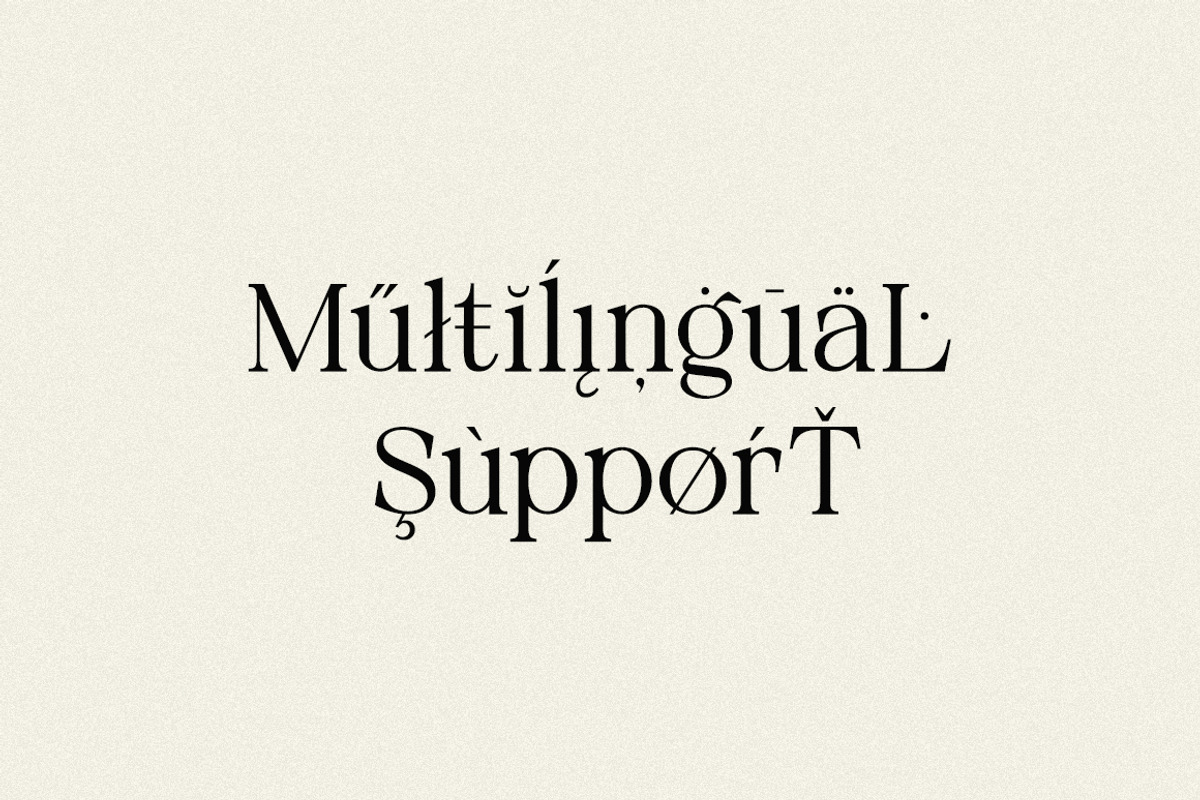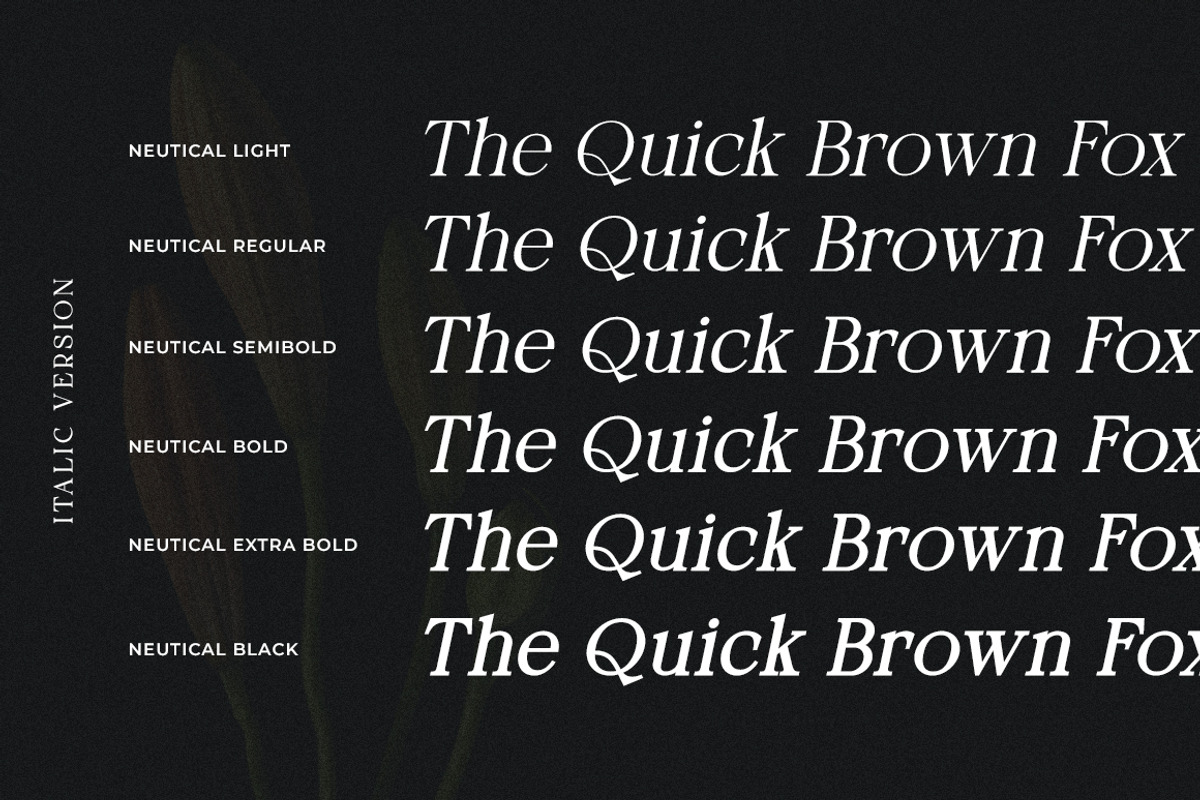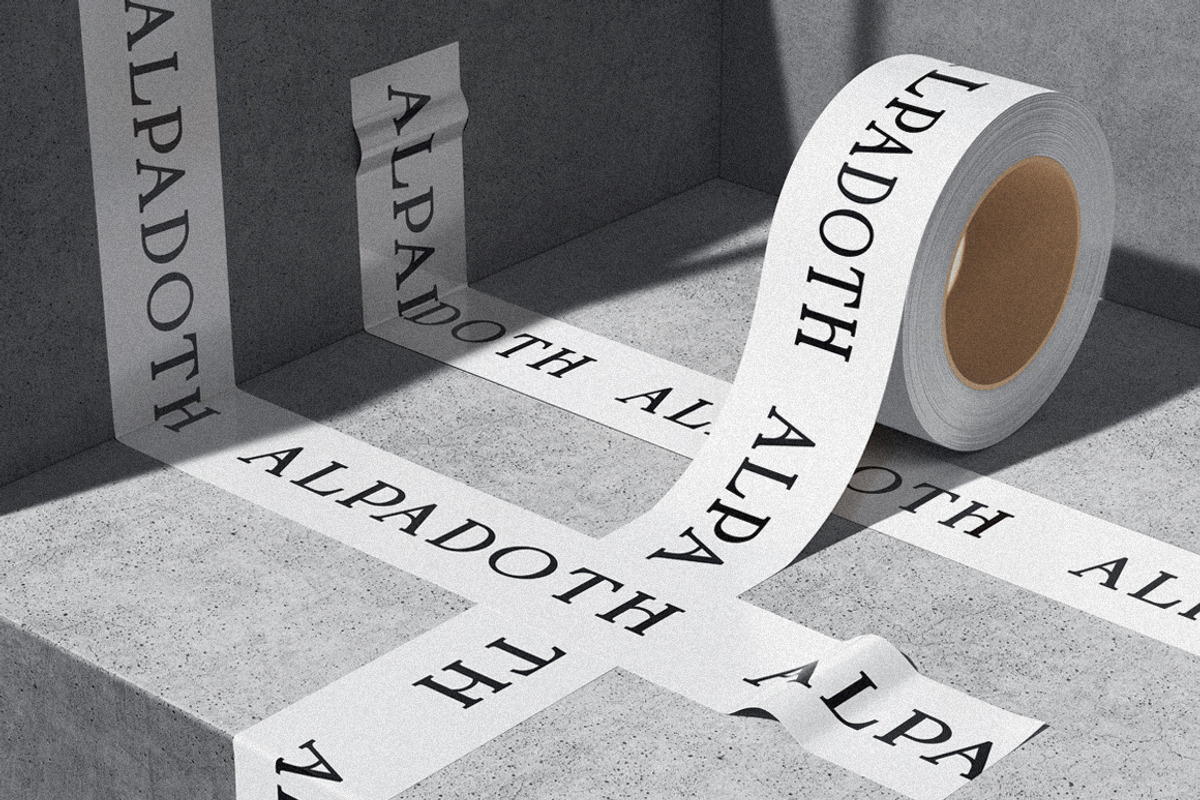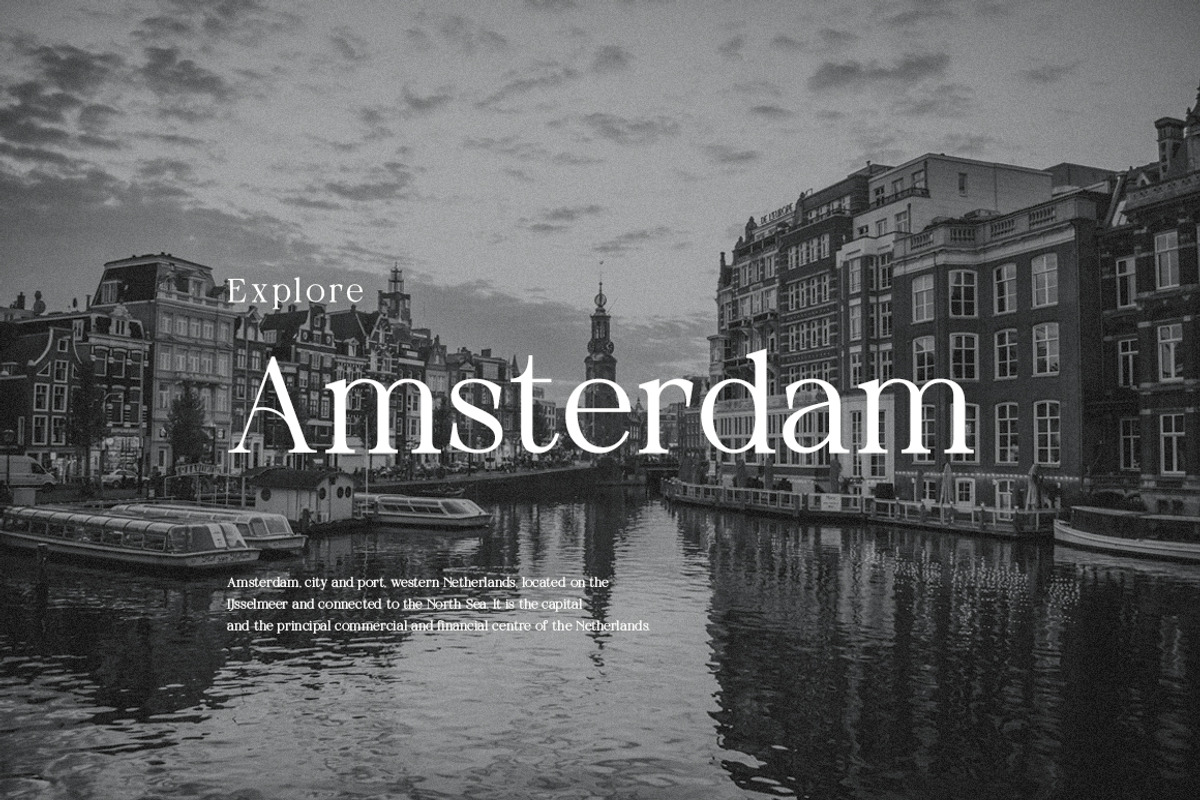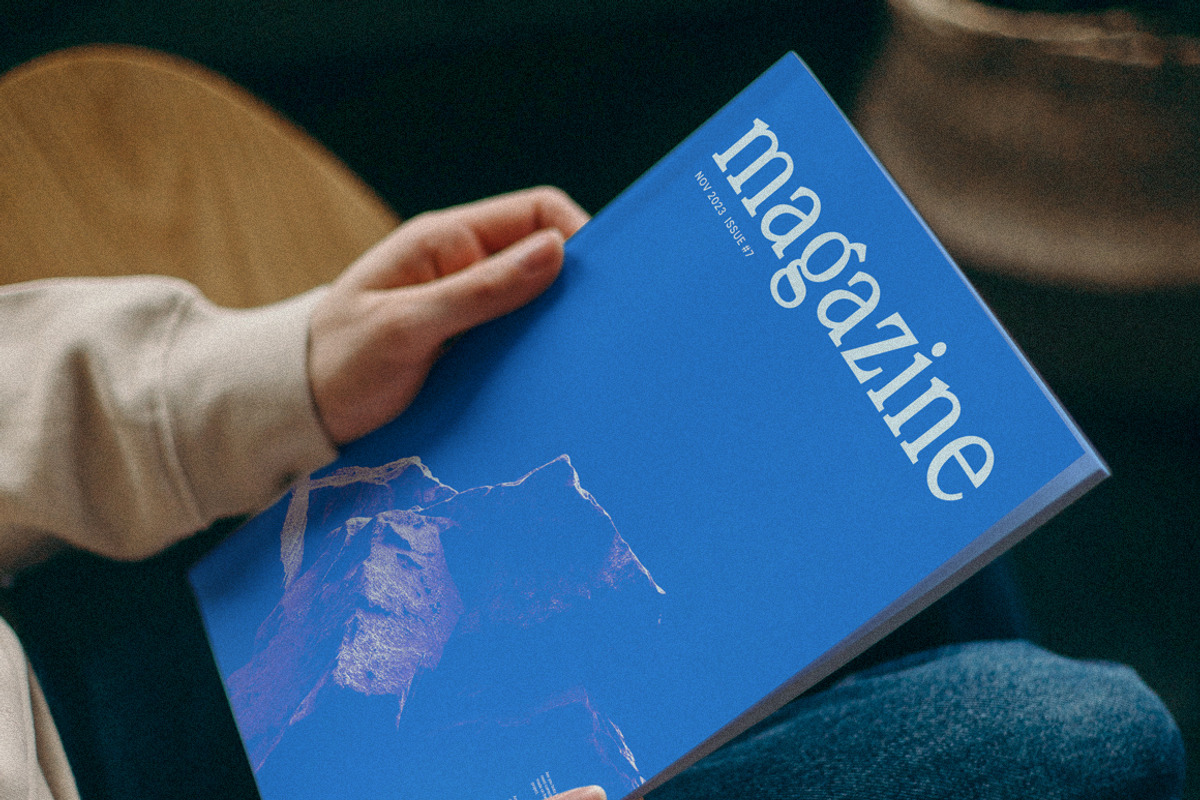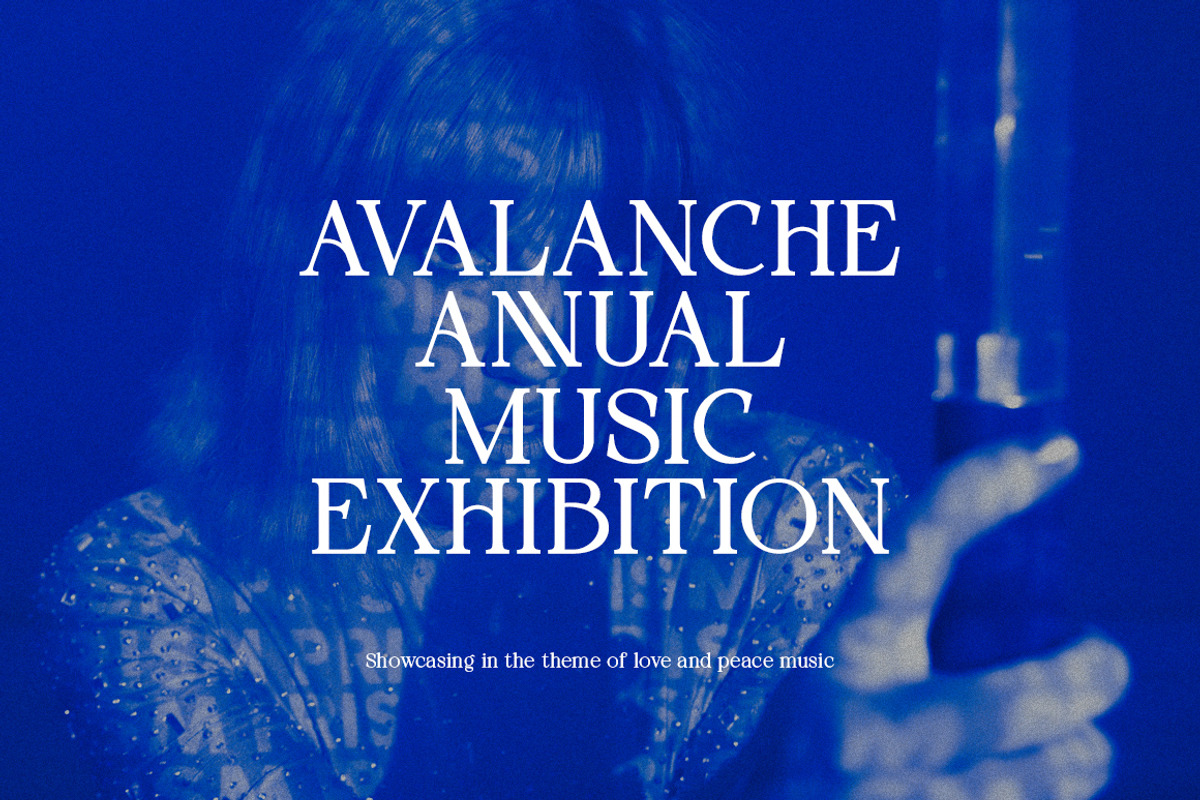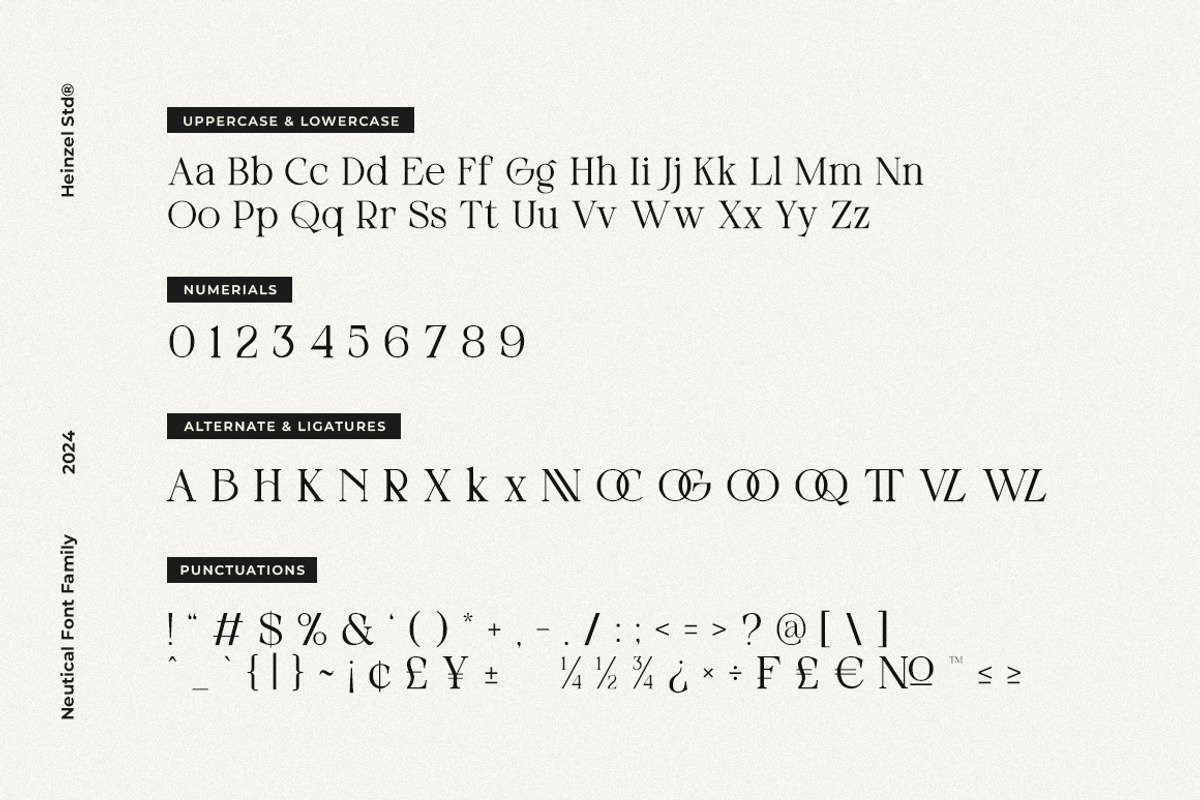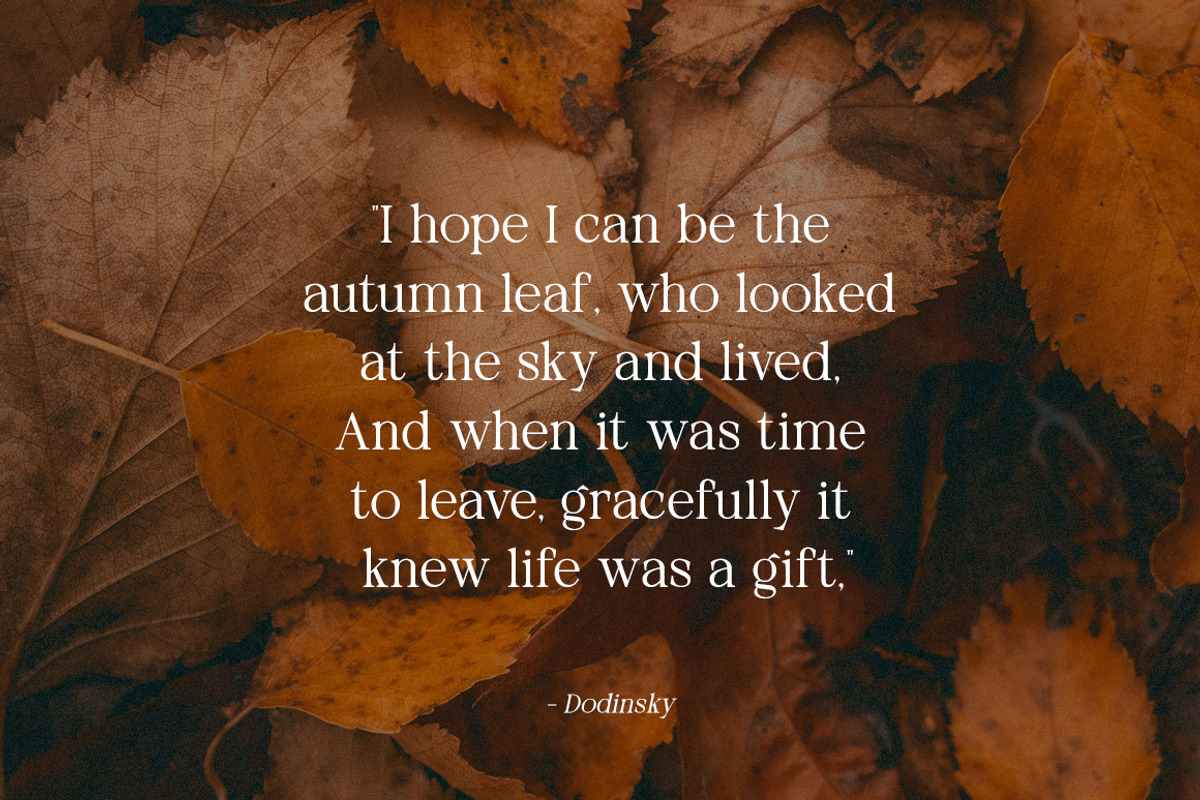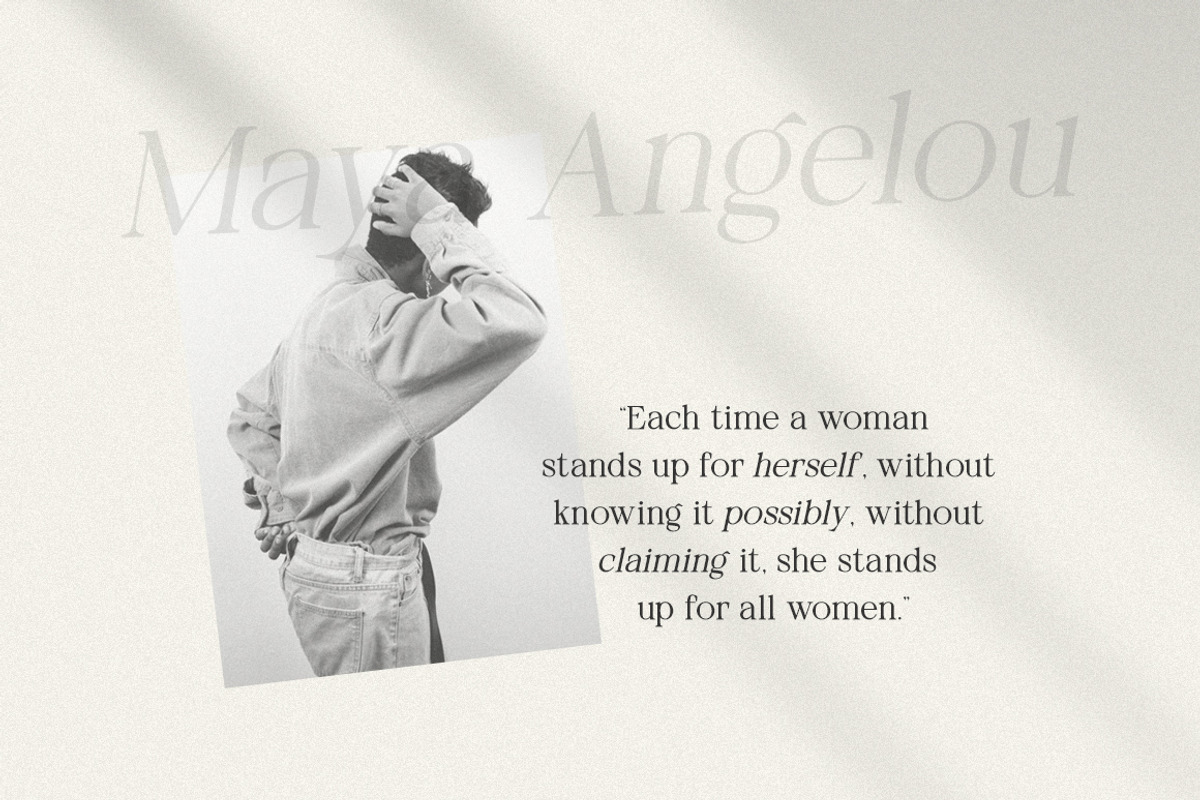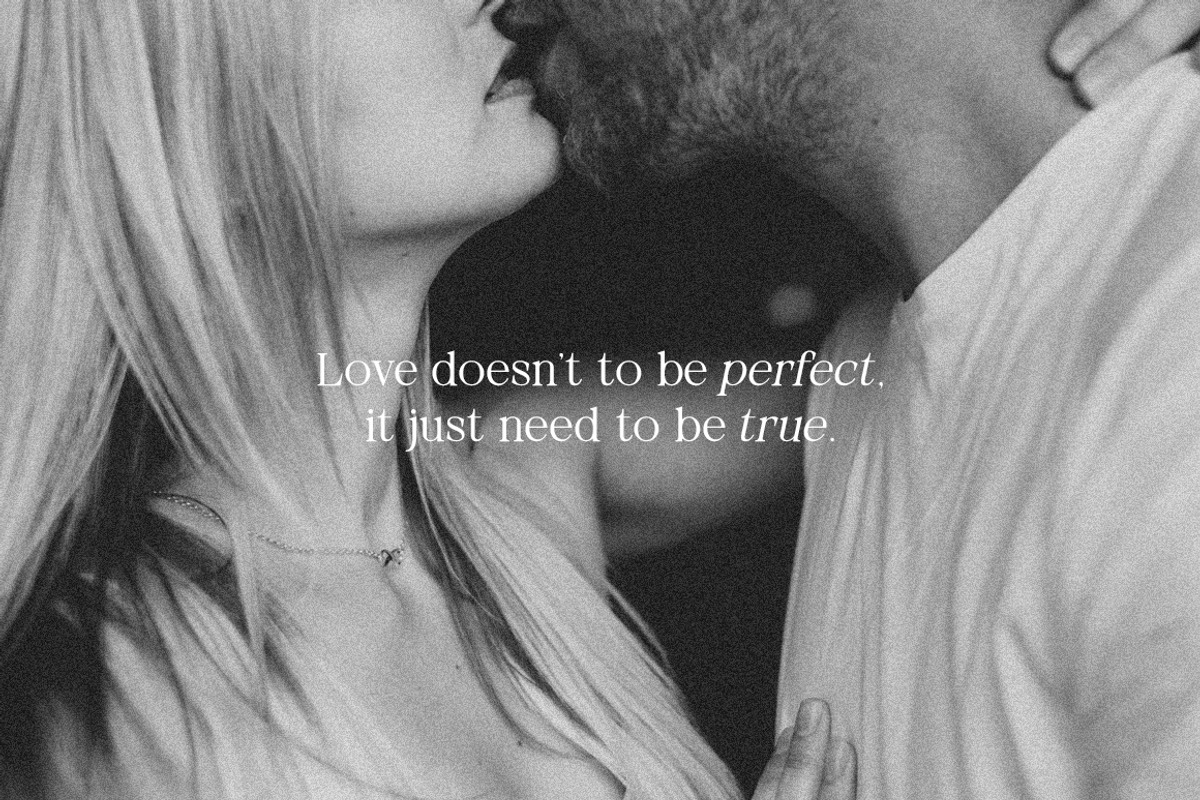
Neutical Serif Font Family (12 Font)
Neutical is a sophisticated serif font family designed to bring timeless elegance and contemporary style to your creative projects. Featuring 6 versatile weights, this font is perfect for both display and text use, offering smooth readability and refined character shapes. With over 300+ glyphs, alternates, ligatures, and full multilingual support, Neutical provides everything you need to create striking branding, editorial designs, logos, packaging, invitations, and websites.
Crafted with precision and passion, Neutical’s clean serifs and balanced proportions make it ideal for modern luxury brands and high-end design aesthetics. Whether you’re designing bold headlines or delicate body text, this font family offers flexibility and harmony for any design style. Elevate your typography with Neutical and give your work a professional, polished look.
Neutical Features:
- 6 Weight Font Family
- Light, Regular, Semibold, Bold, Extrabold, Black and Italic Version
- Uppercase, Lowercase, Numerals, and more punctuation.
- Ligatures and Alternates
- Multilingual support for various languages